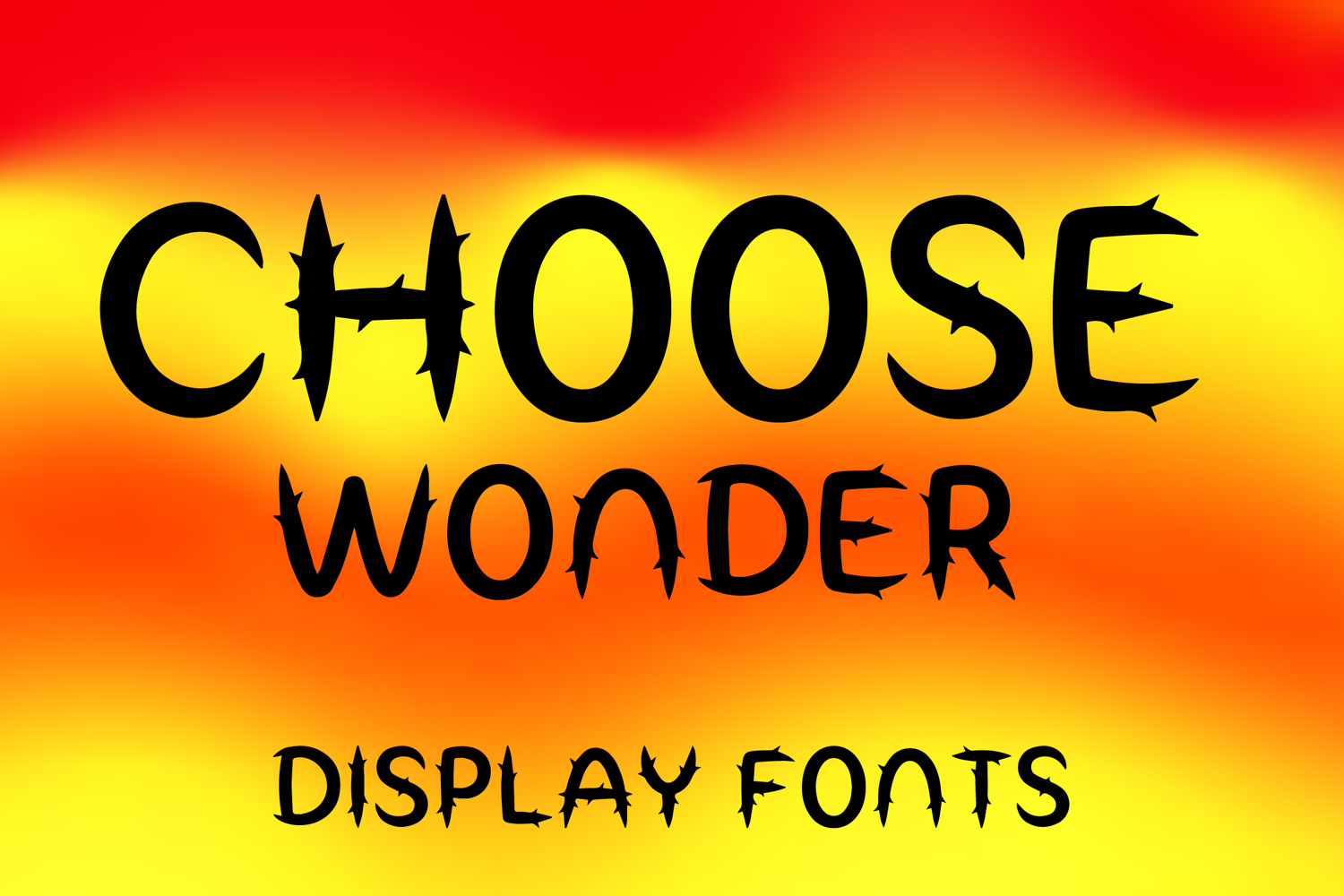
CHOOSE WONDER
CHOOSE WONDER is a bold decorative display font with an edgy handcrafted style and striking artistic energy. Its uppercase letterforms feature sharp thorn-like details, pointed accents, and slightly irregular shapes that create a dramatic, adventurous, and eye-catching look. Designed with uppercase letters A–Z and numbers 0–9, CHOOSE WONDER is perfect for branding, posters, packaging, book covers, logos, and creative projects that need a bold and unforgettable statement.
CHOOSE WONDER